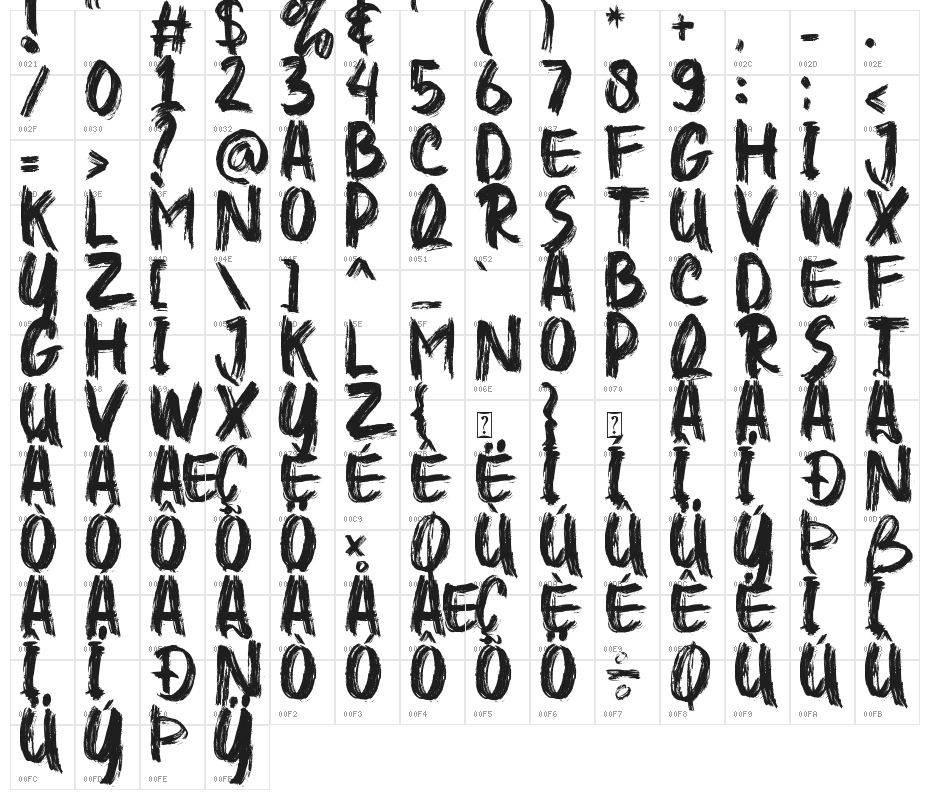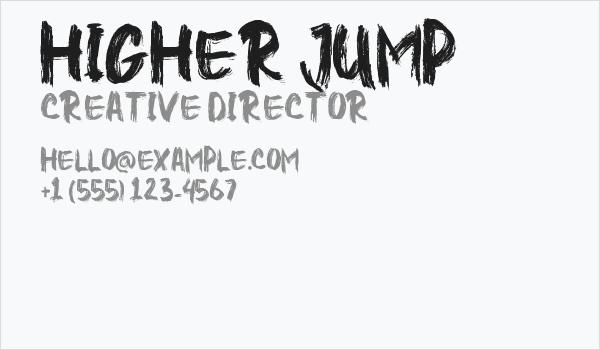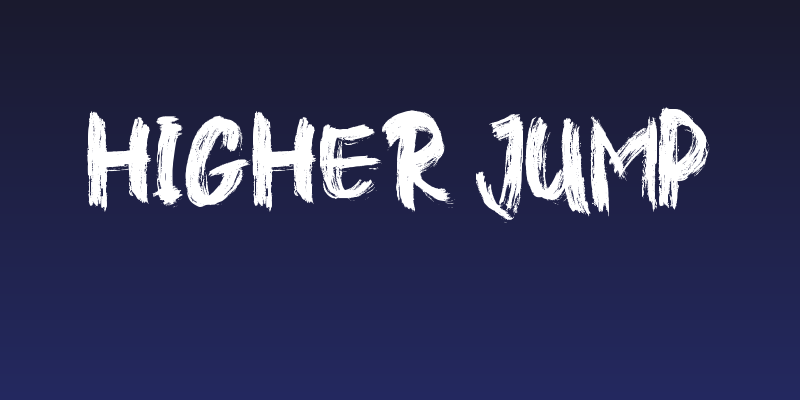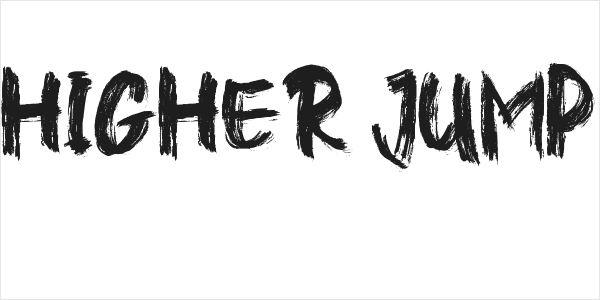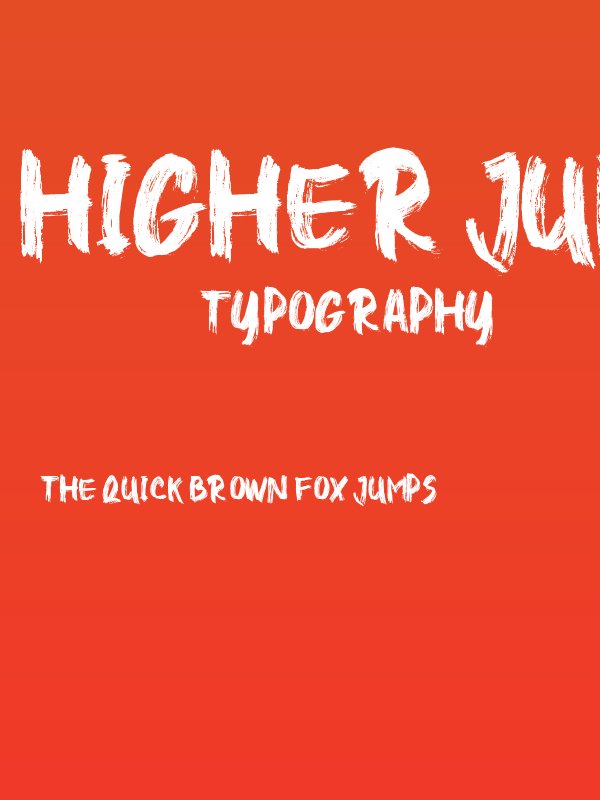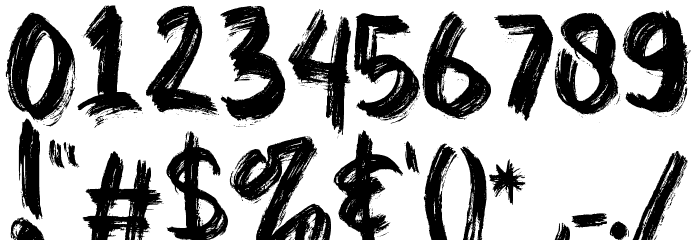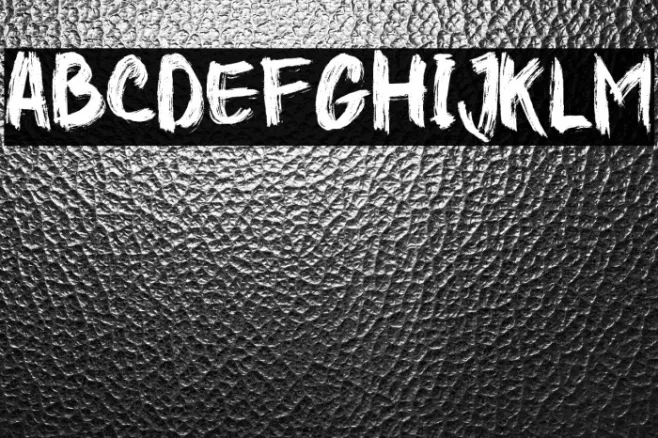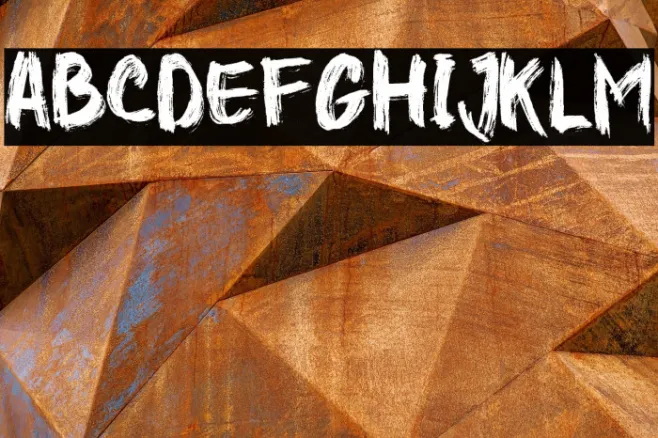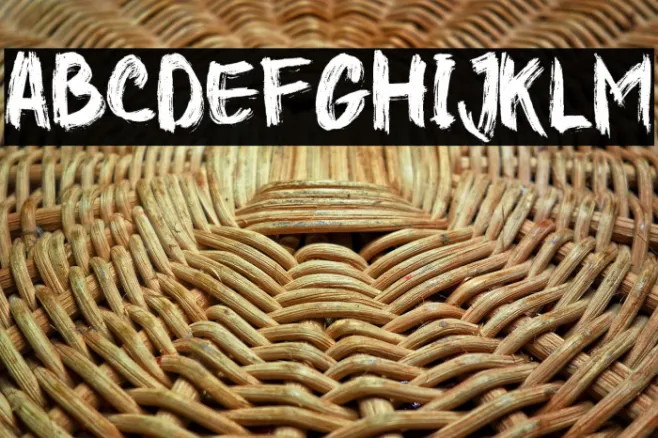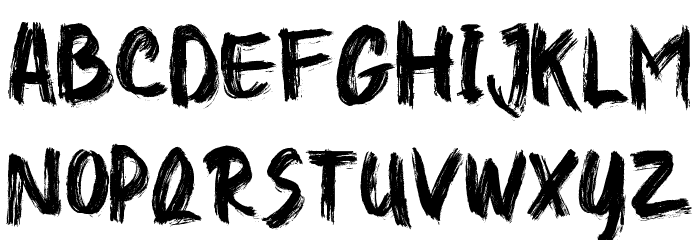
Higher Jump Font
Higher Jump Description
This font features a bold, brushstroke style that exudes energy and dynamism. The characters are crafted with a rough, textured appearance, giving them a hand-painted feel. The uppercase and lowercase letters maintain a consistent style, with each character exhibiting unique variations that add to the font's organic look. The numbers and special characters follow the same aesthetic, ensuring a cohesive appearance across all text. This font is ideal for projects that require a strong, artistic touch, such as posters, branding, and creative designs.
| Proposed Projects | Ideal for posters, branding, creative designs, and any project needing an artistic touch. |